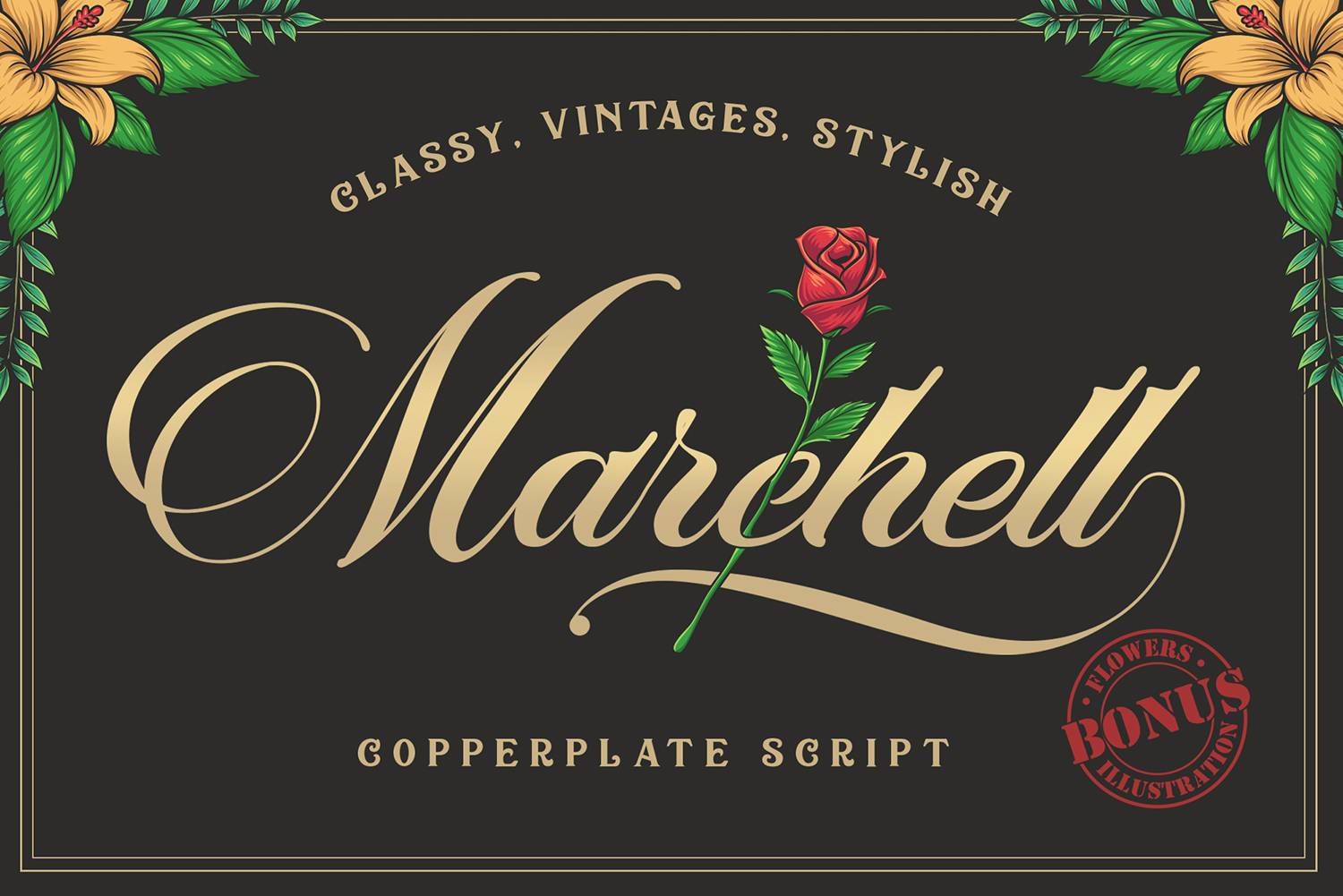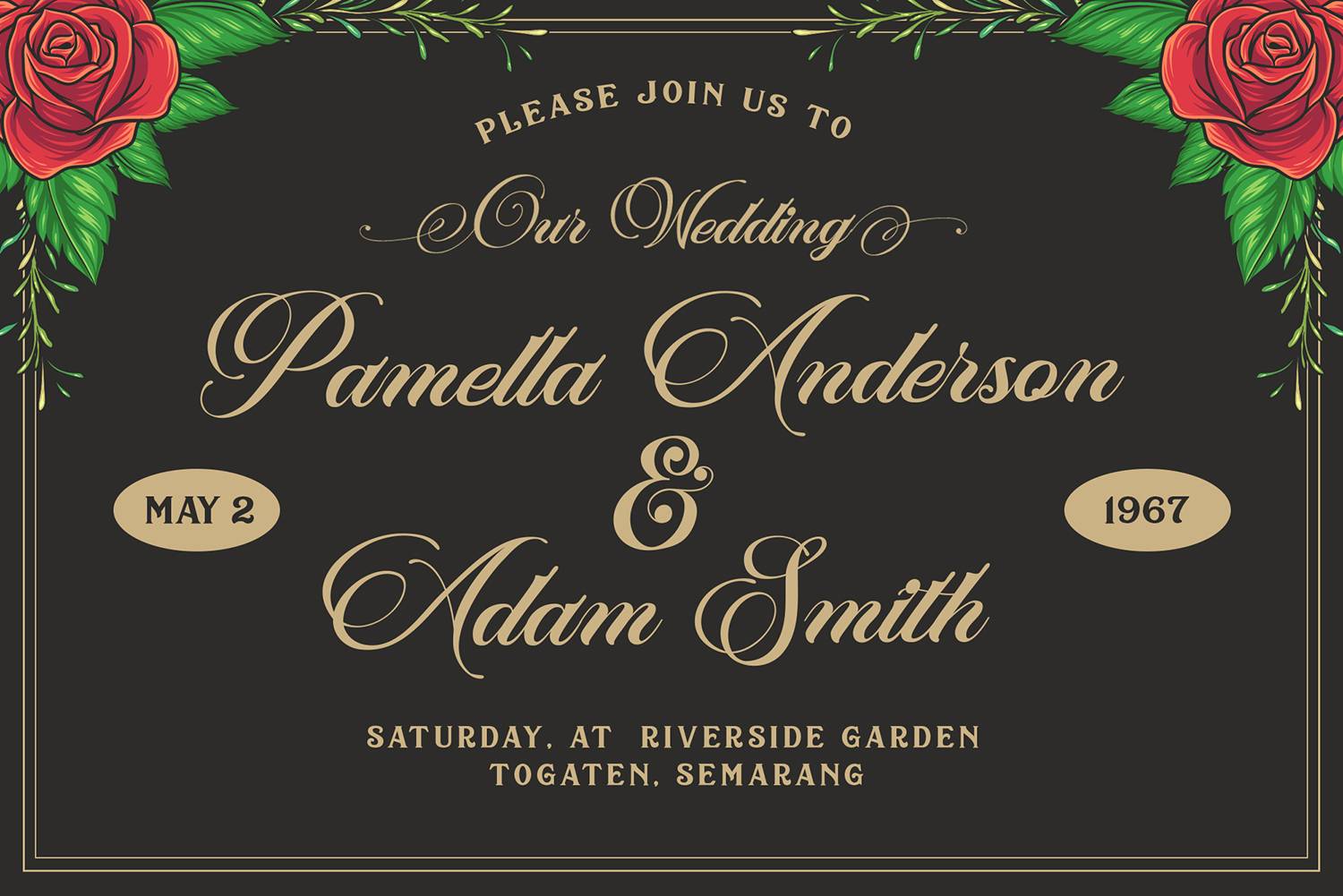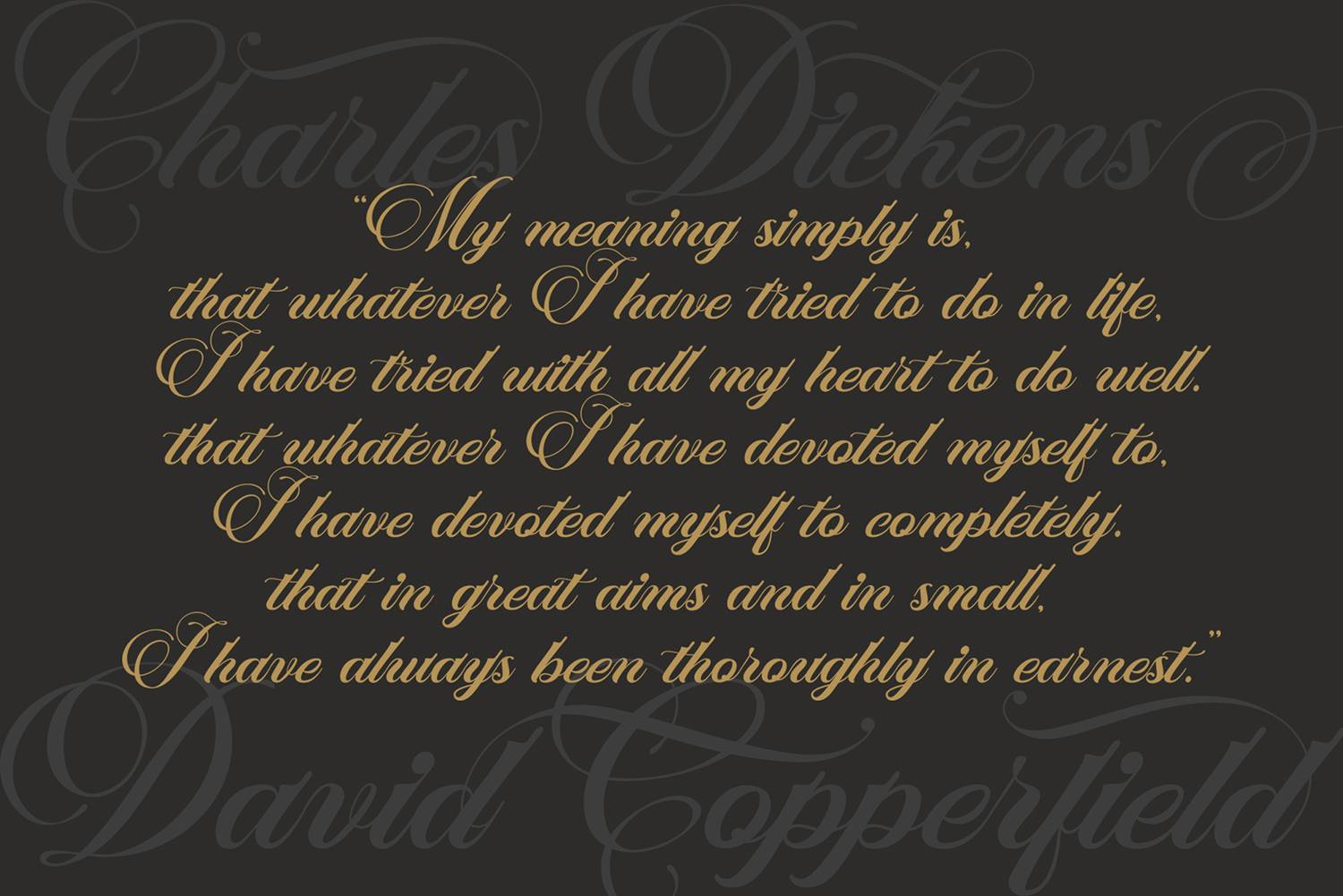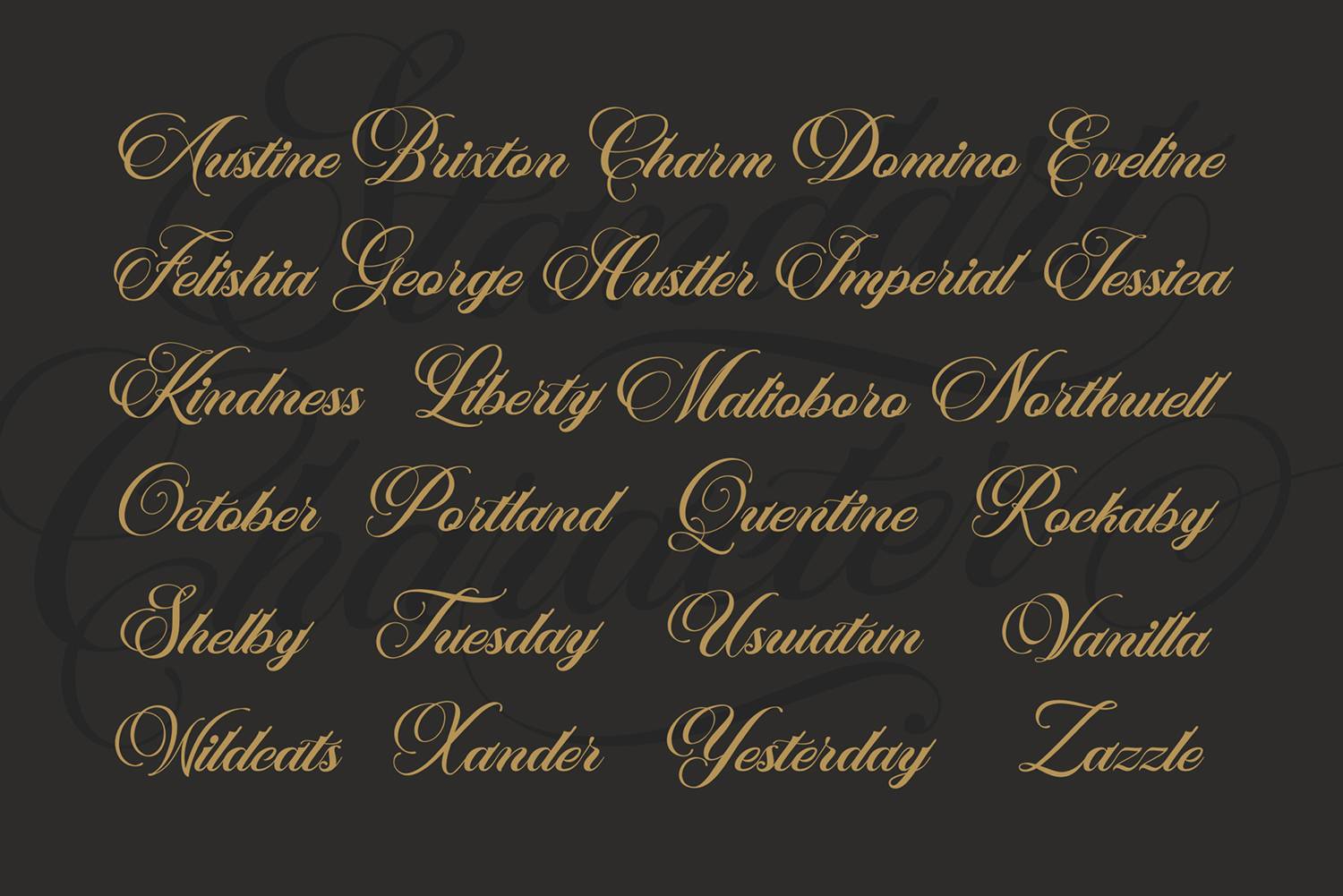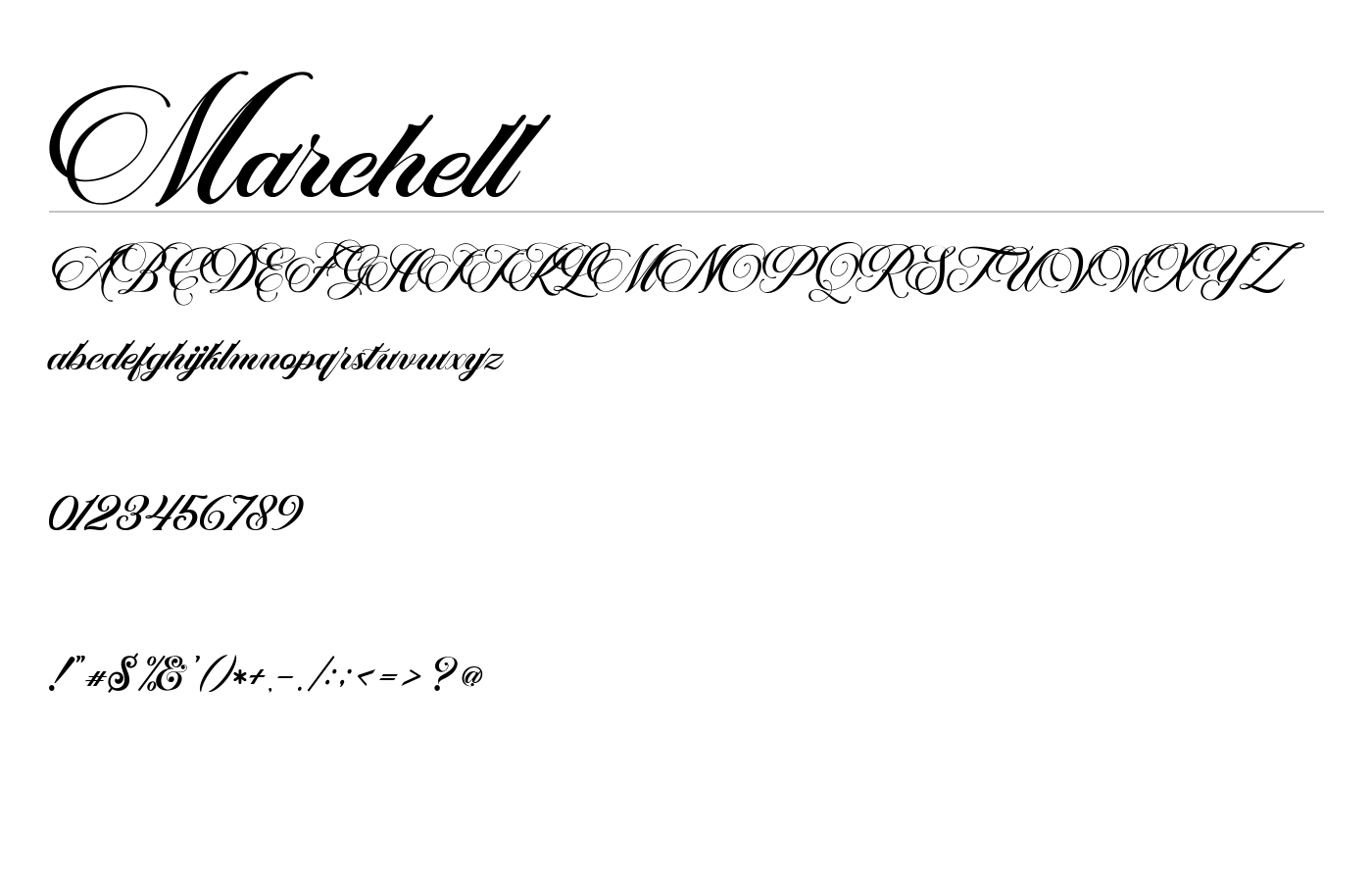
Marchell Script is a refined and elegant script font featuring high contrast strokes and delicate, flowing letterforms that evoke a sense of luxury and sophistication. Its ornate uppercase characters and graceful lowercase letters make it ideal for upscale branding, wedding invitations, and stylish editorial headlines where a classic, romantic touch is desired. This font excels in projects that require a timeless, decorative flair while maintaining readability in larger sizes.
Marchell Script Font
About Marchell Script Font